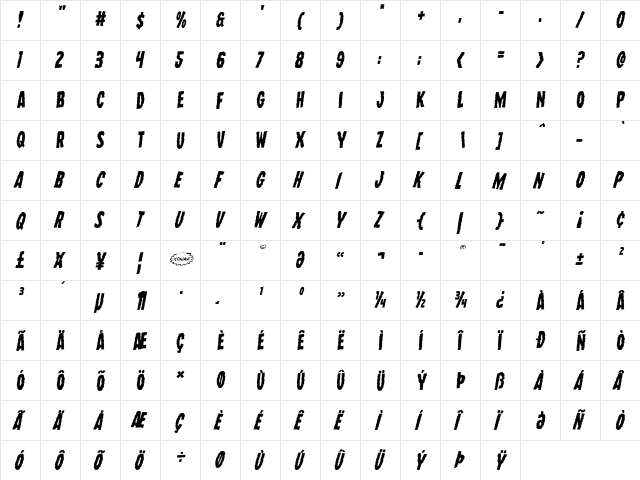
Wolf Brothers Leaning Italic Italic
Design Context for Wolf Brothers Leaning Italic Typeface
Wolf Brothers Leaning Italic is a composed and adaptable typeface that performs quietly and consistently across a wide range of design contexts. The dynamic lean of this cut emphasises speed and emphasis in any layout.
Pro Tip: Use Wolf Brothers Leaning Italic for emphasis, pull quotes, and subheadings where its slanted energy can add rhythm to the layout.